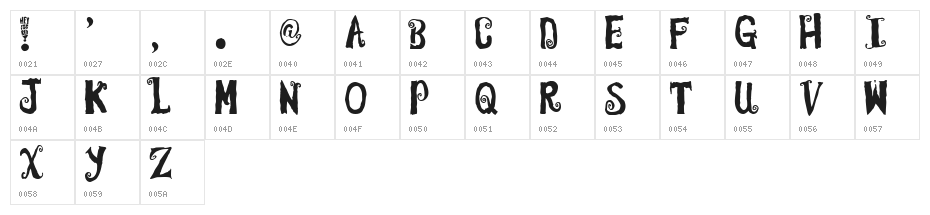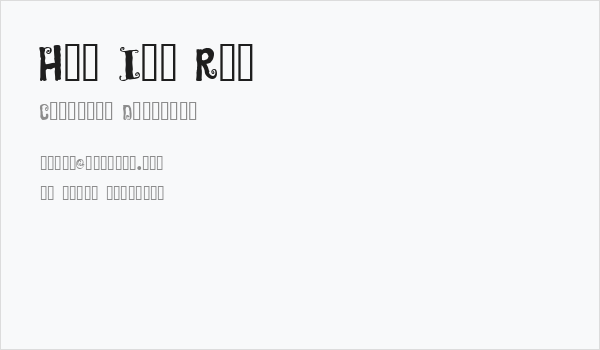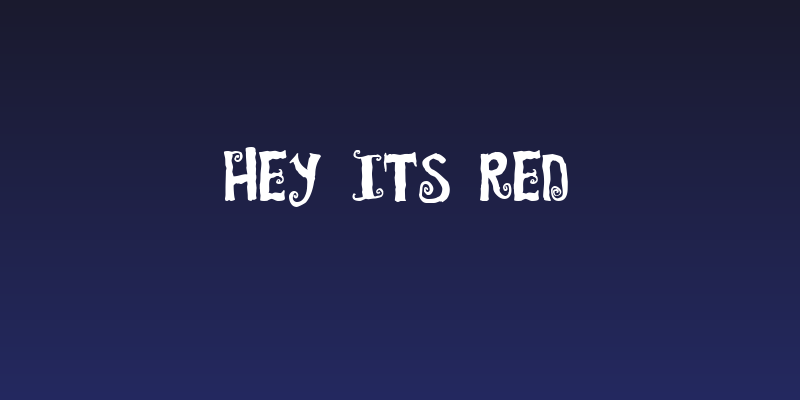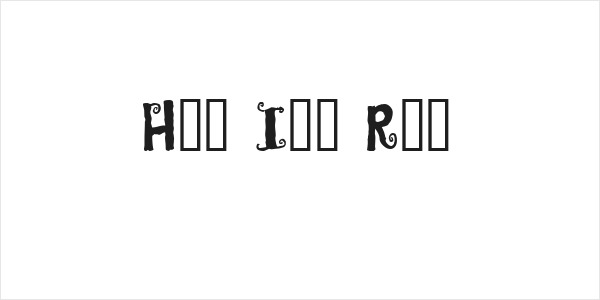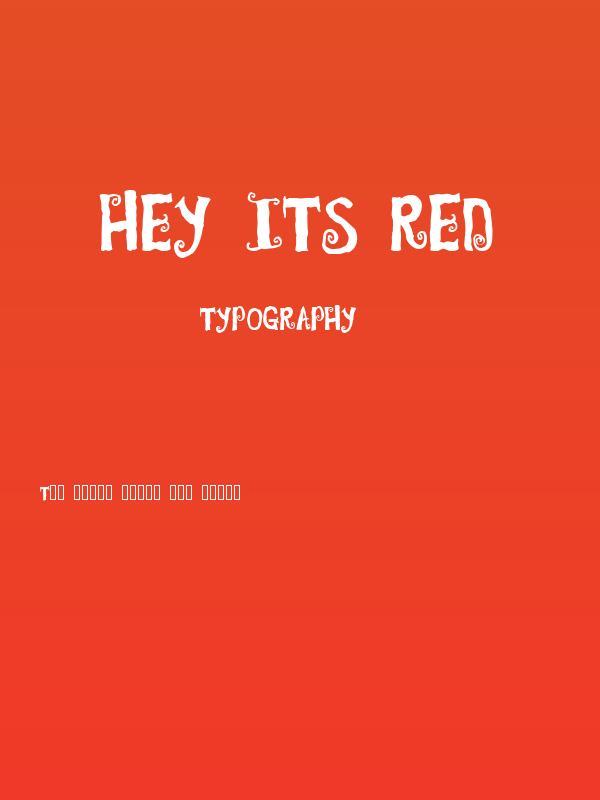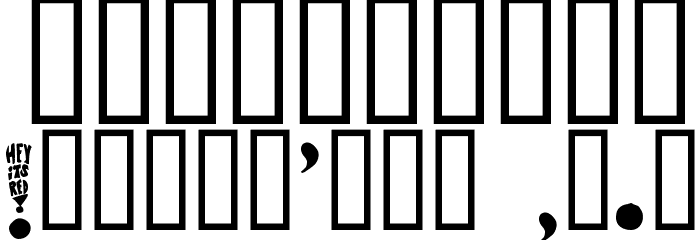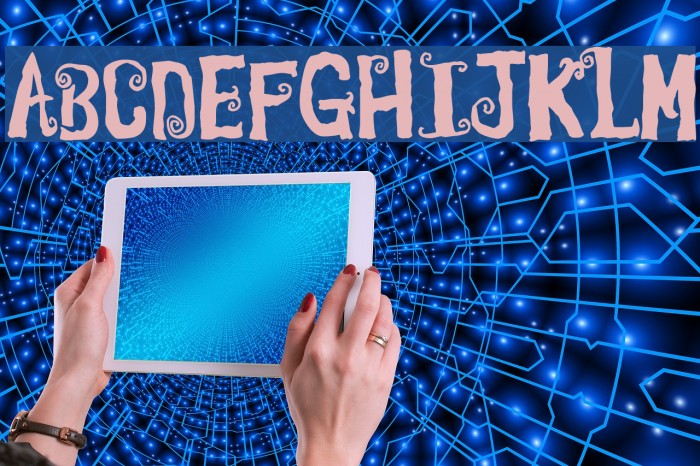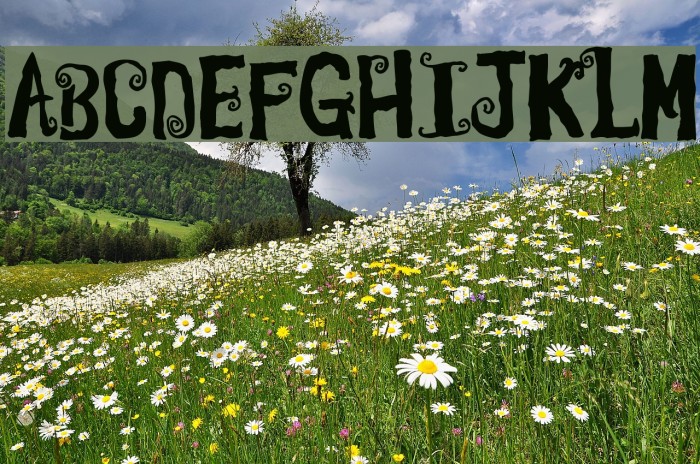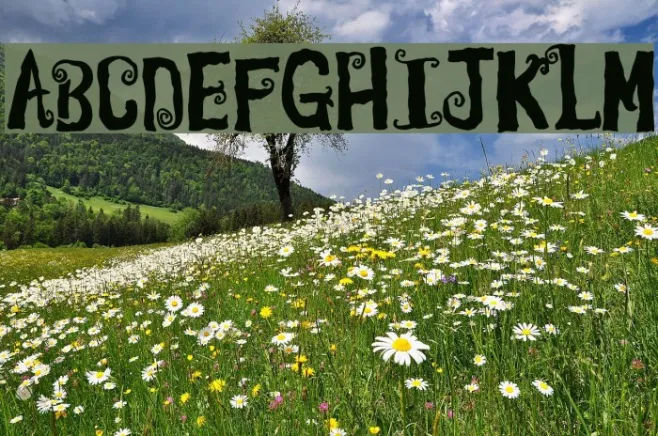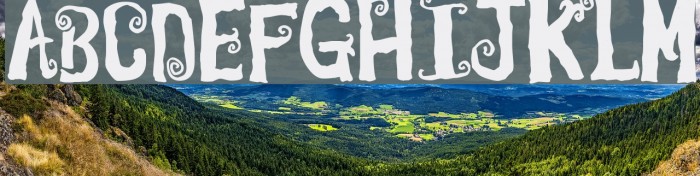
Hey Its Red Font
This font features a whimsical and playful design, characterized by its bold and irregular letterforms. Each character is uniquely crafted with swirling embellishments and varying stroke widths, giving it a lively and dynamic appearance. The uppercase letters are particularly distinctive, with exaggerated curves and flourishes that add a sense of movement and energy. The font's overall style is reminiscent of a hand-drawn or artistic approach, making it suitable for creative and informal applications. Its decorative nature makes it stand out, perfect for capturing attention in headlines or artistic projects.
| Proposed Projects | Ideal for children's book covers, playful posters, creative branding, and artistic invitations. |